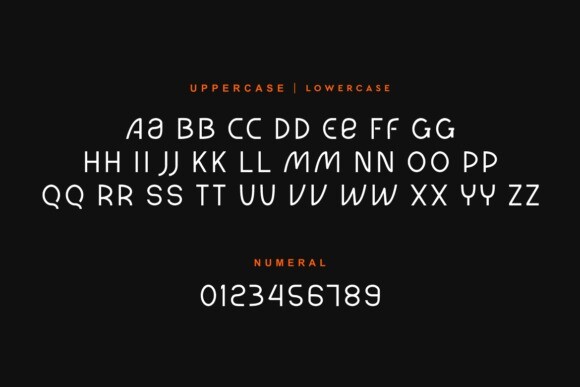
Ogame Weoos Font
Designer: qrdesignstd
Ogame Weoos Font is a bold and unique sans serif font. No matter the topic, this font will be an incredible asset to your fonts’ library, as it has the potential to elevate any creation.